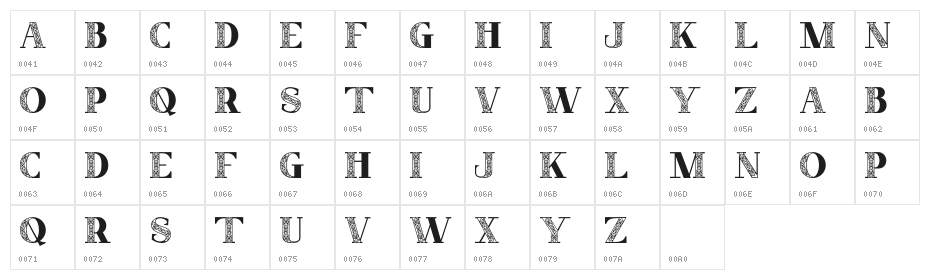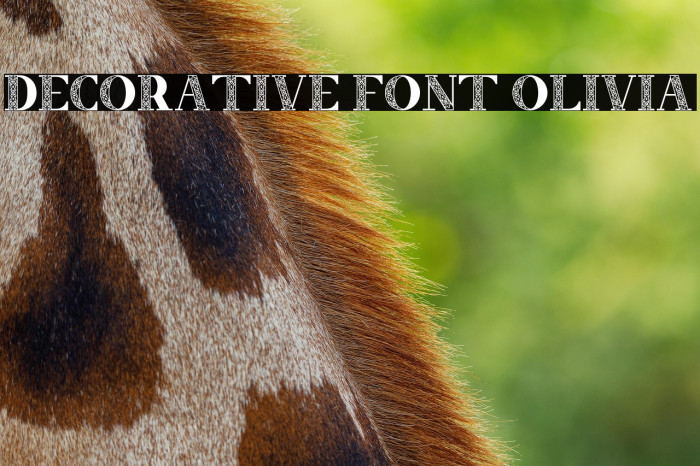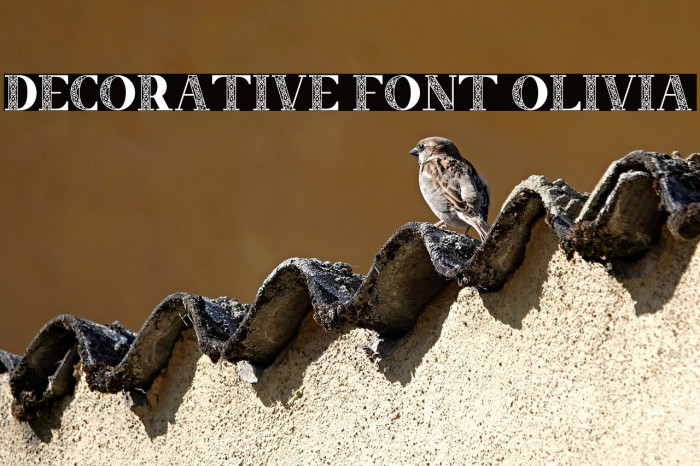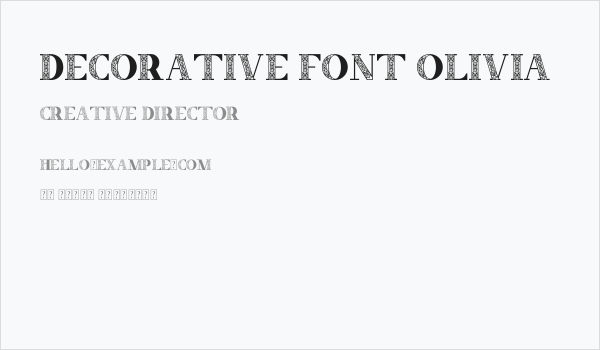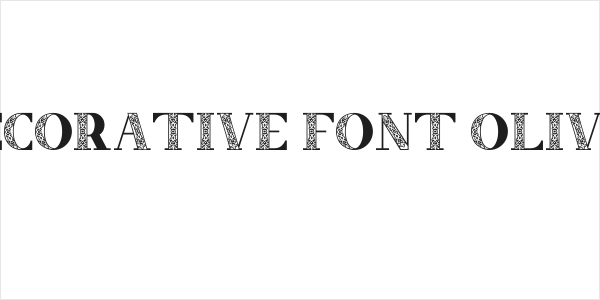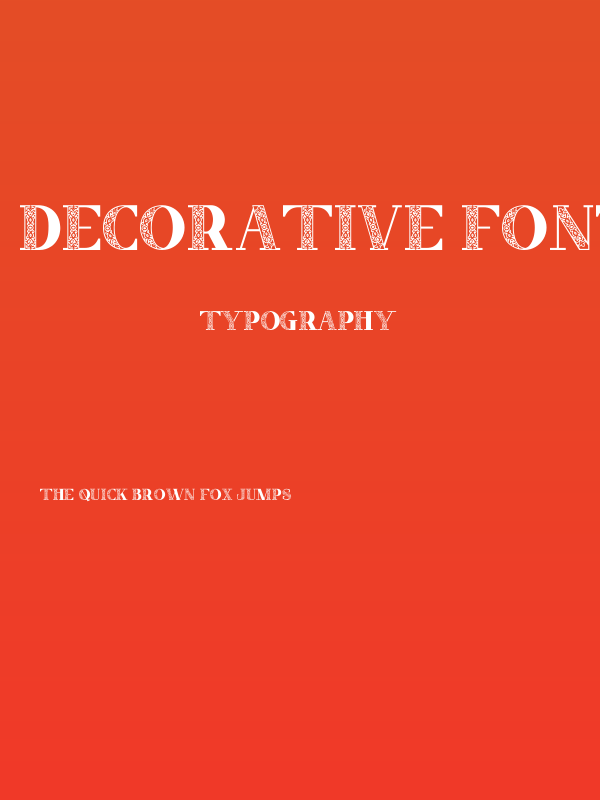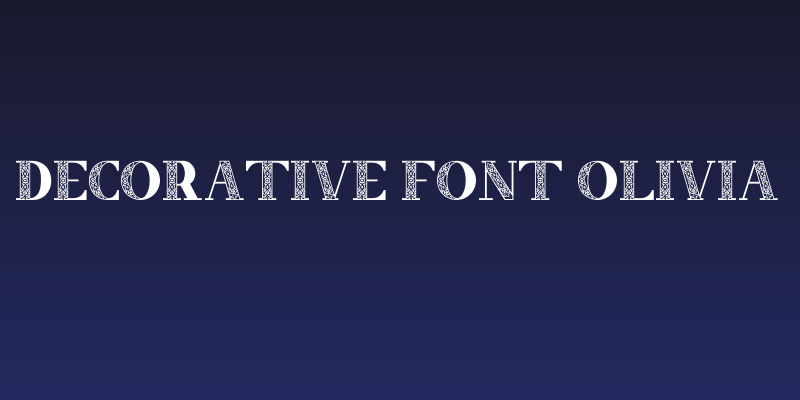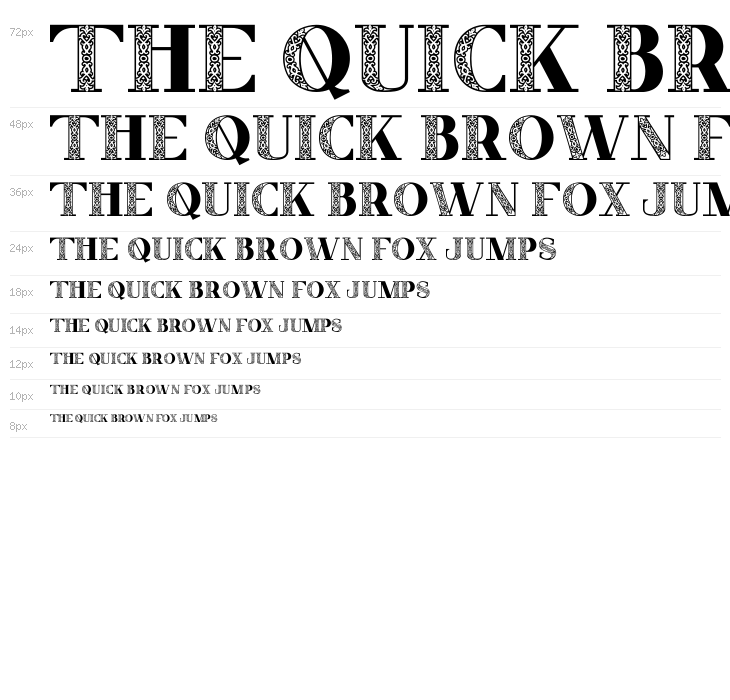
Decorative Font Olivia Font
Decorative Font Olivia Description
This font features a bold and decorative style with intricate patterns filling the interior of each letter. The uppercase letters are prominently displayed, showcasing a unique blend of traditional serif elements with modern decorative flair. The patterns within the letters add a layer of complexity and visual interest, making it stand out in any design. The overall appearance is both elegant and eye-catching, suitable for projects that require a touch of sophistication and creativity. The font maintains a consistent weight throughout, ensuring readability while still offering a distinct artistic touch.
| Proposed Projects | Ideal for wedding invitations, luxury branding, artistic posters, and decorative headlines. |